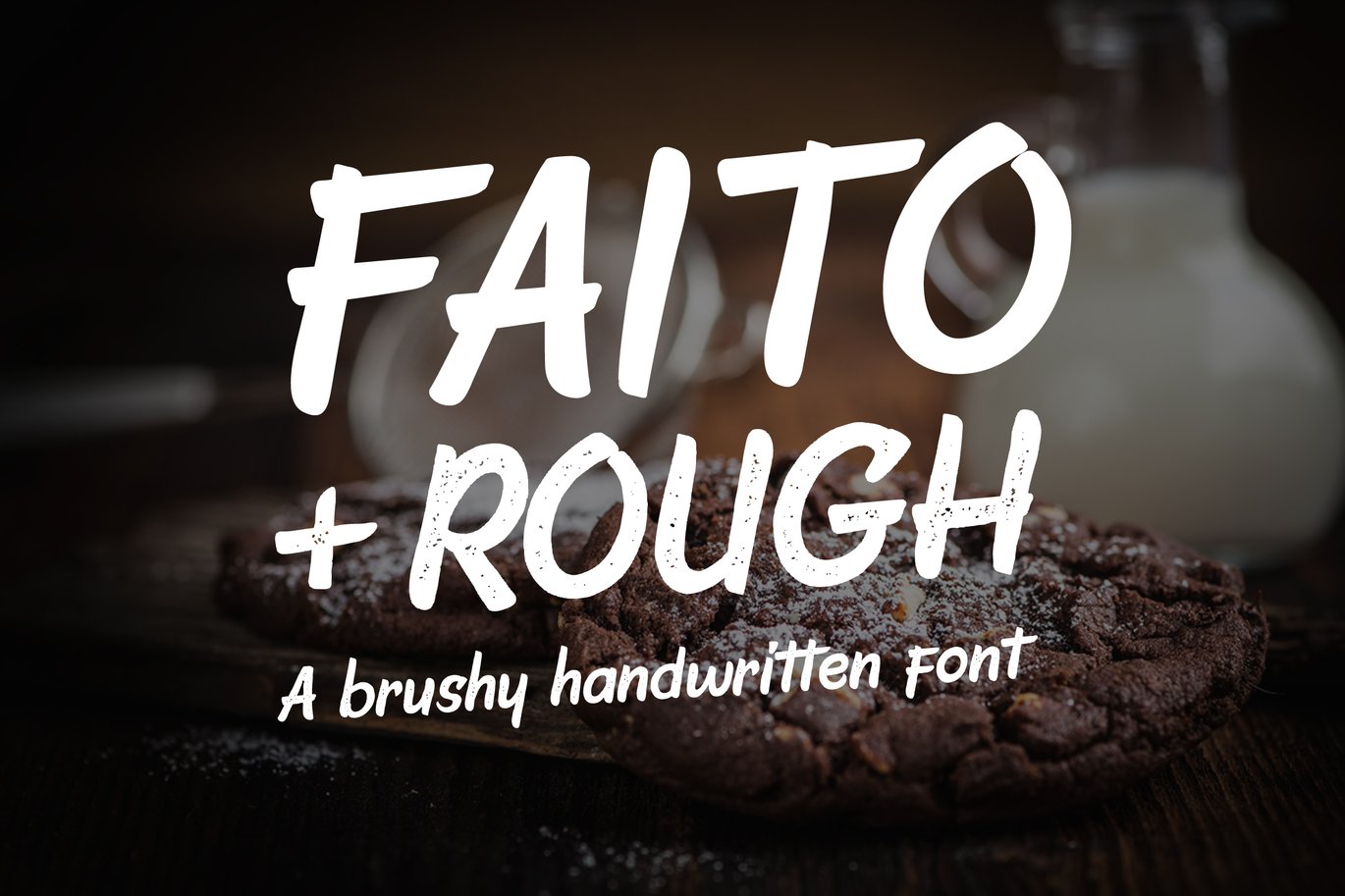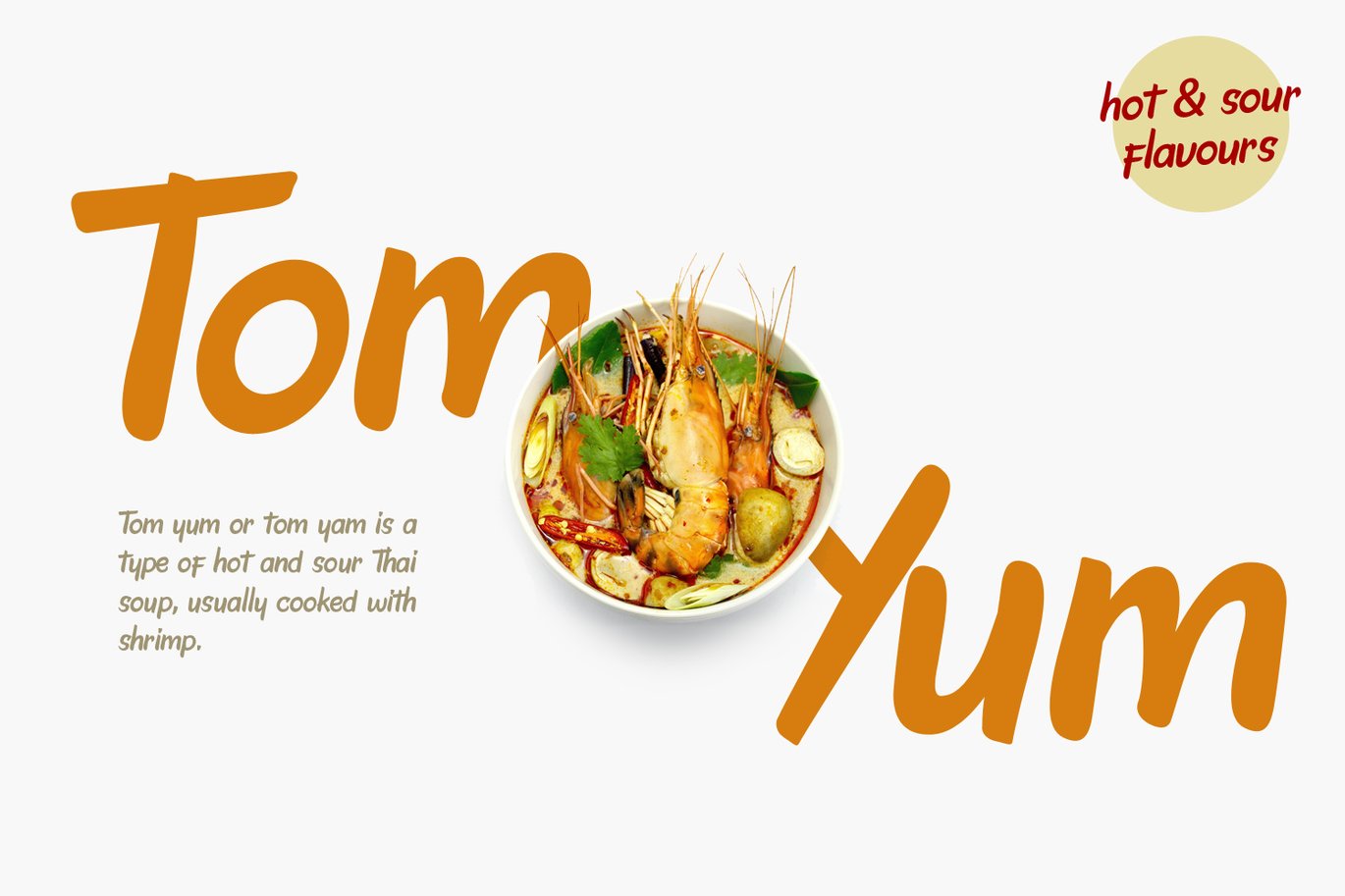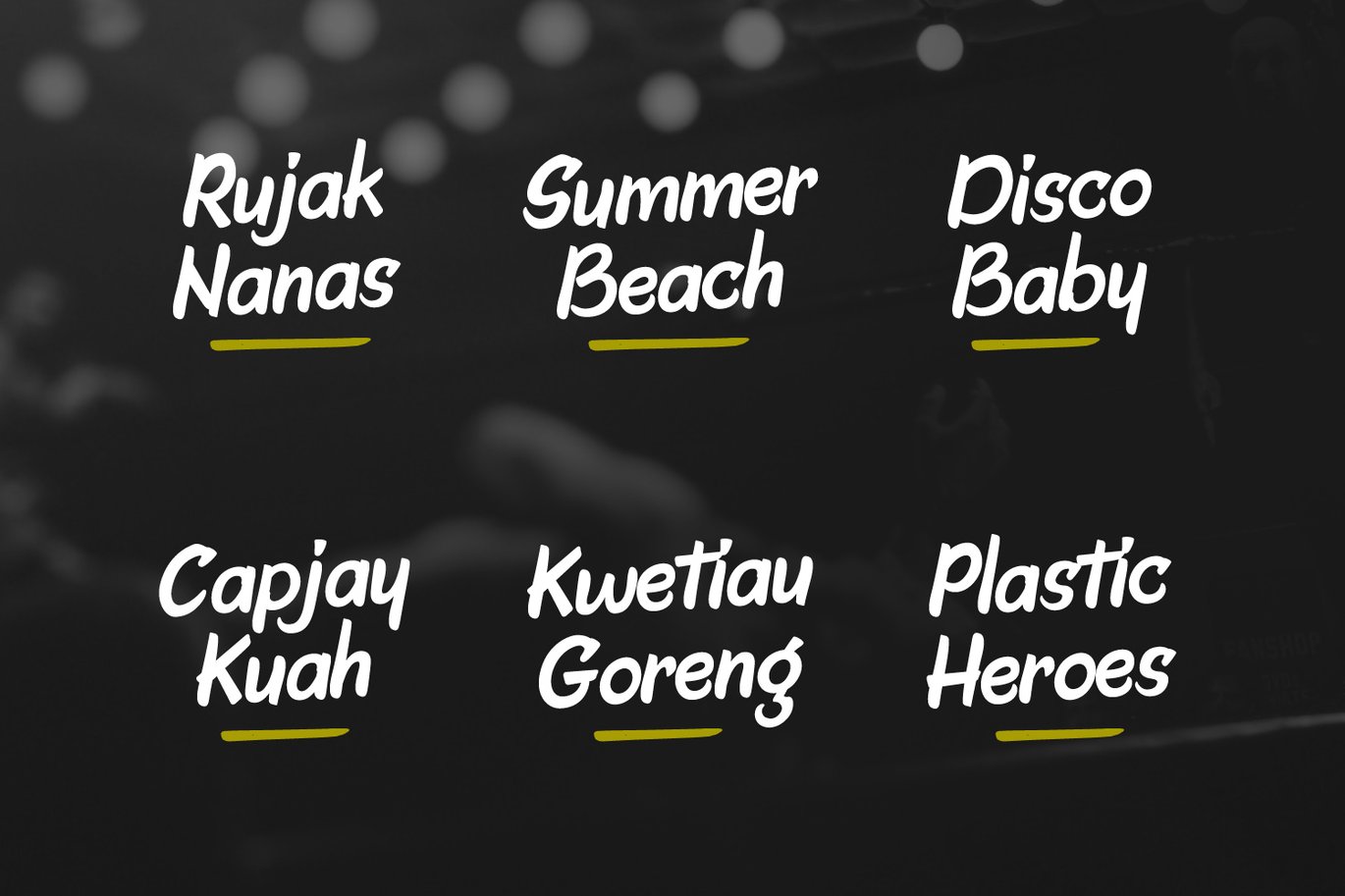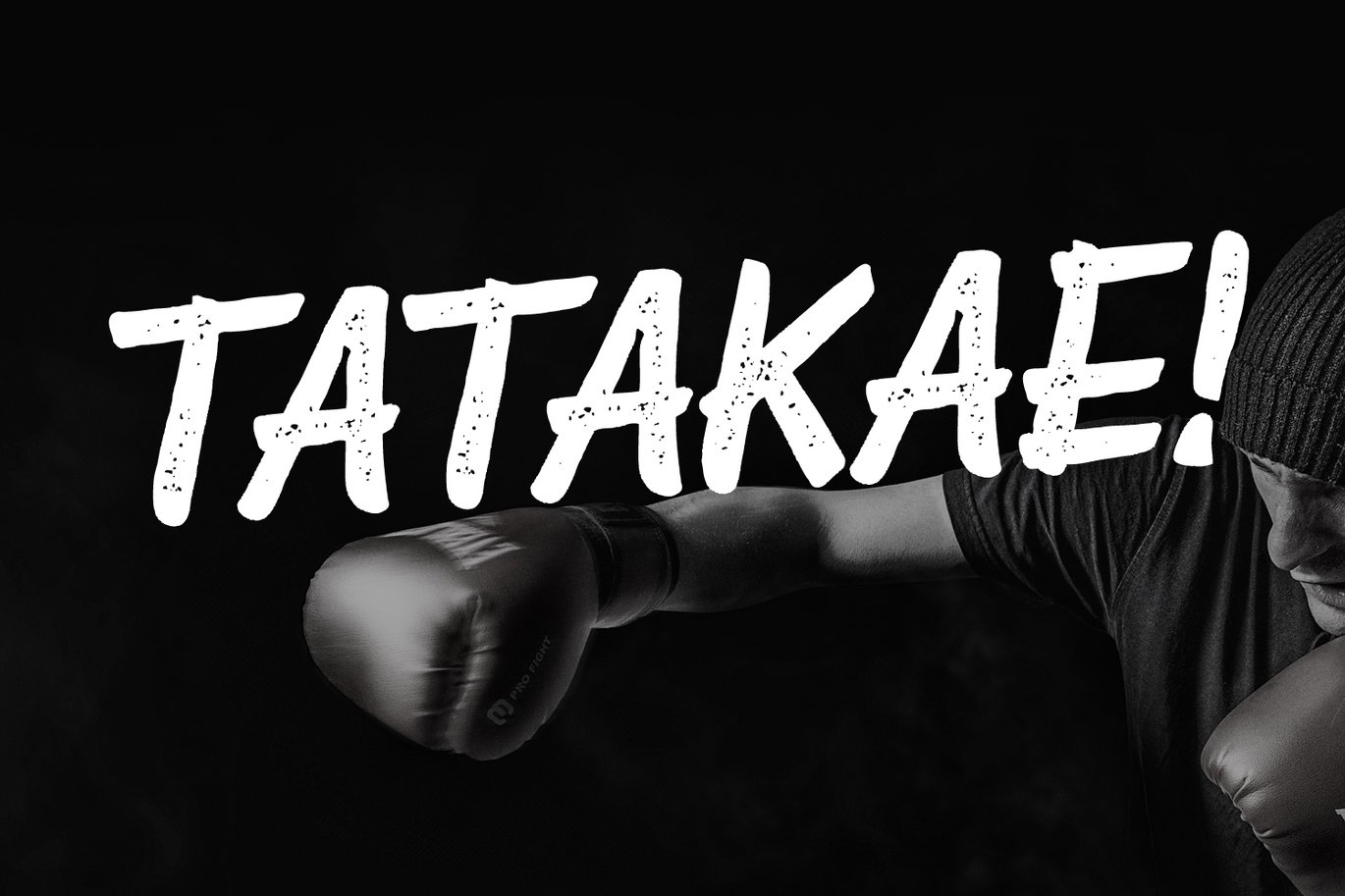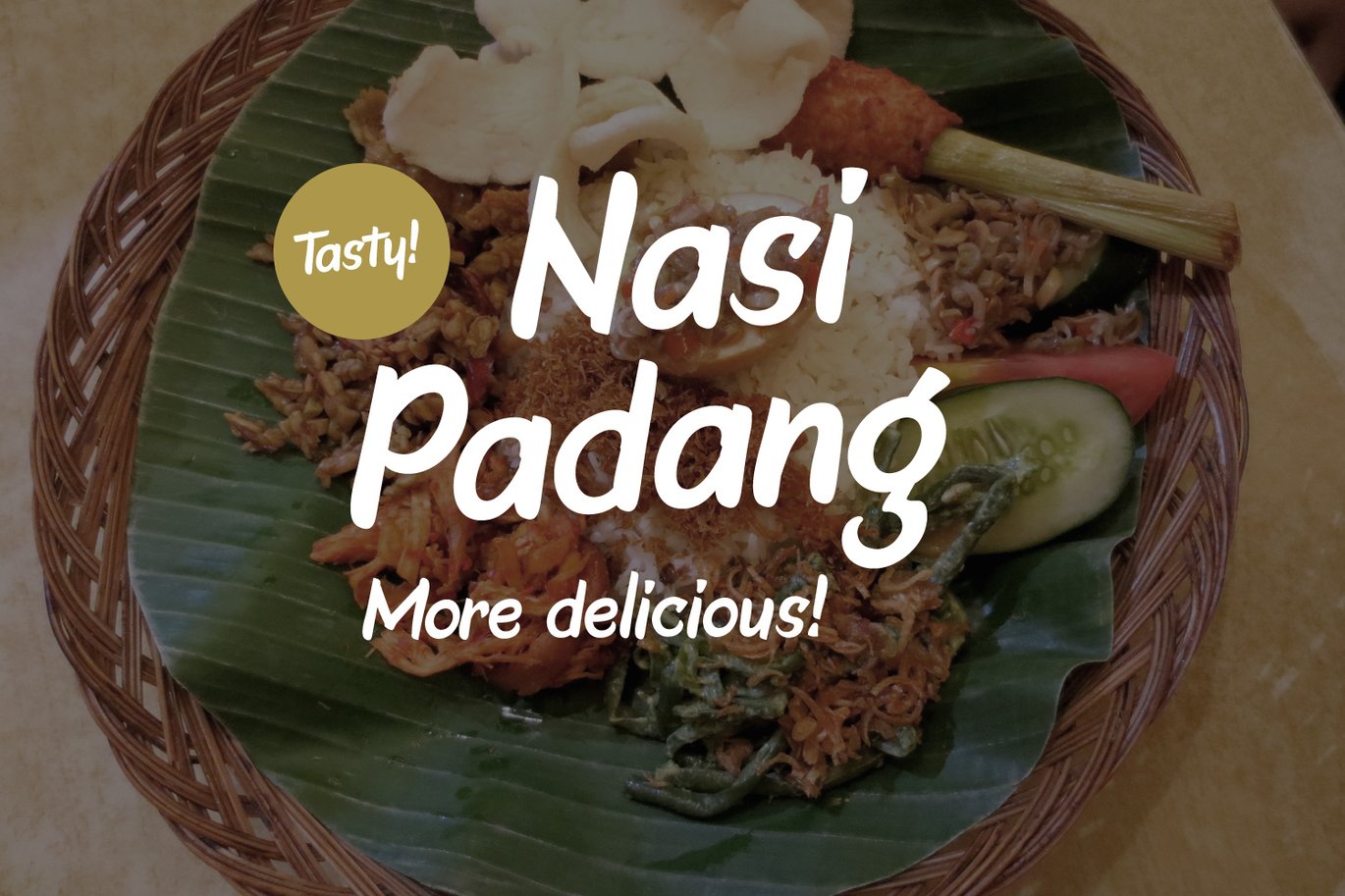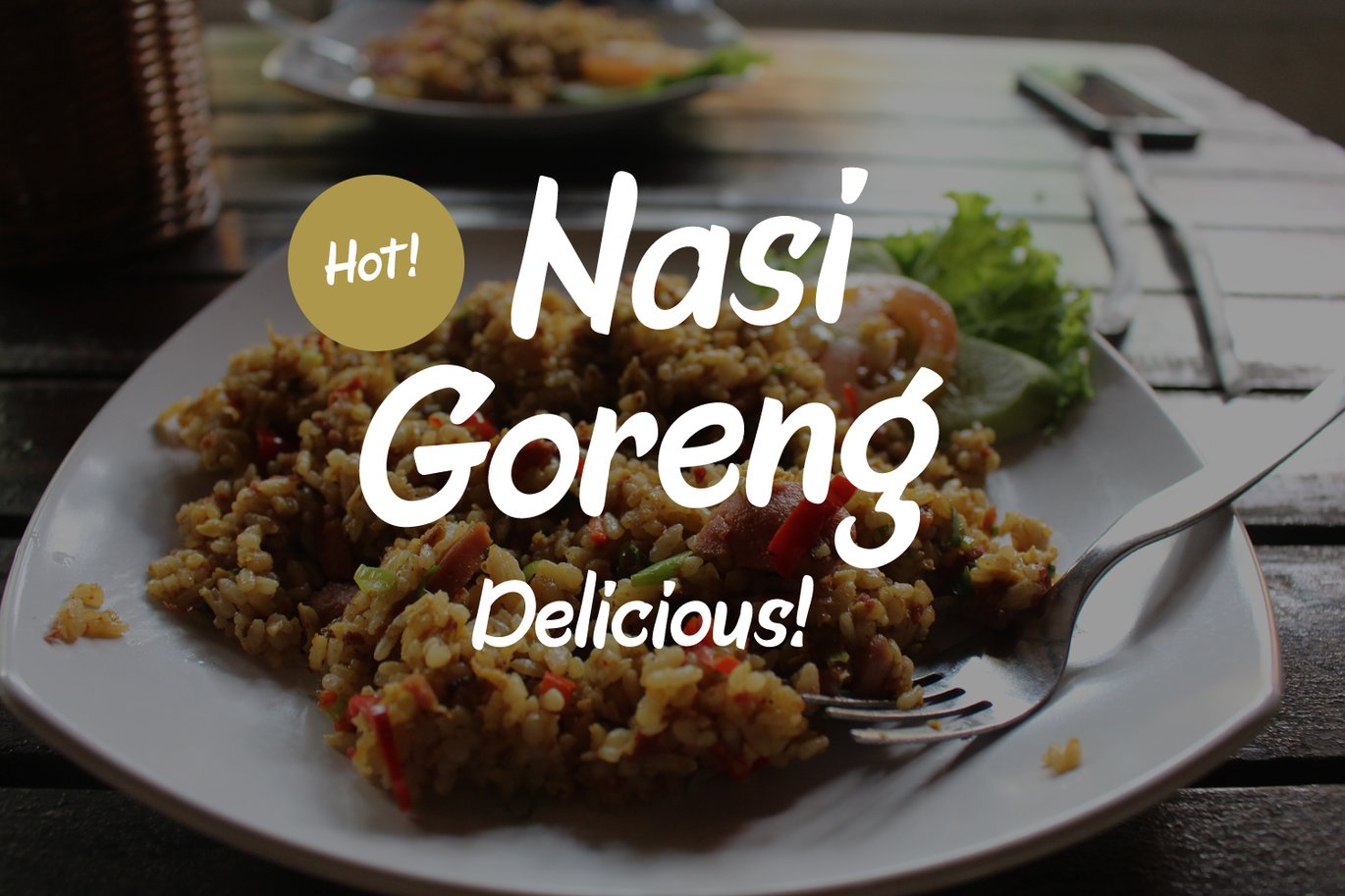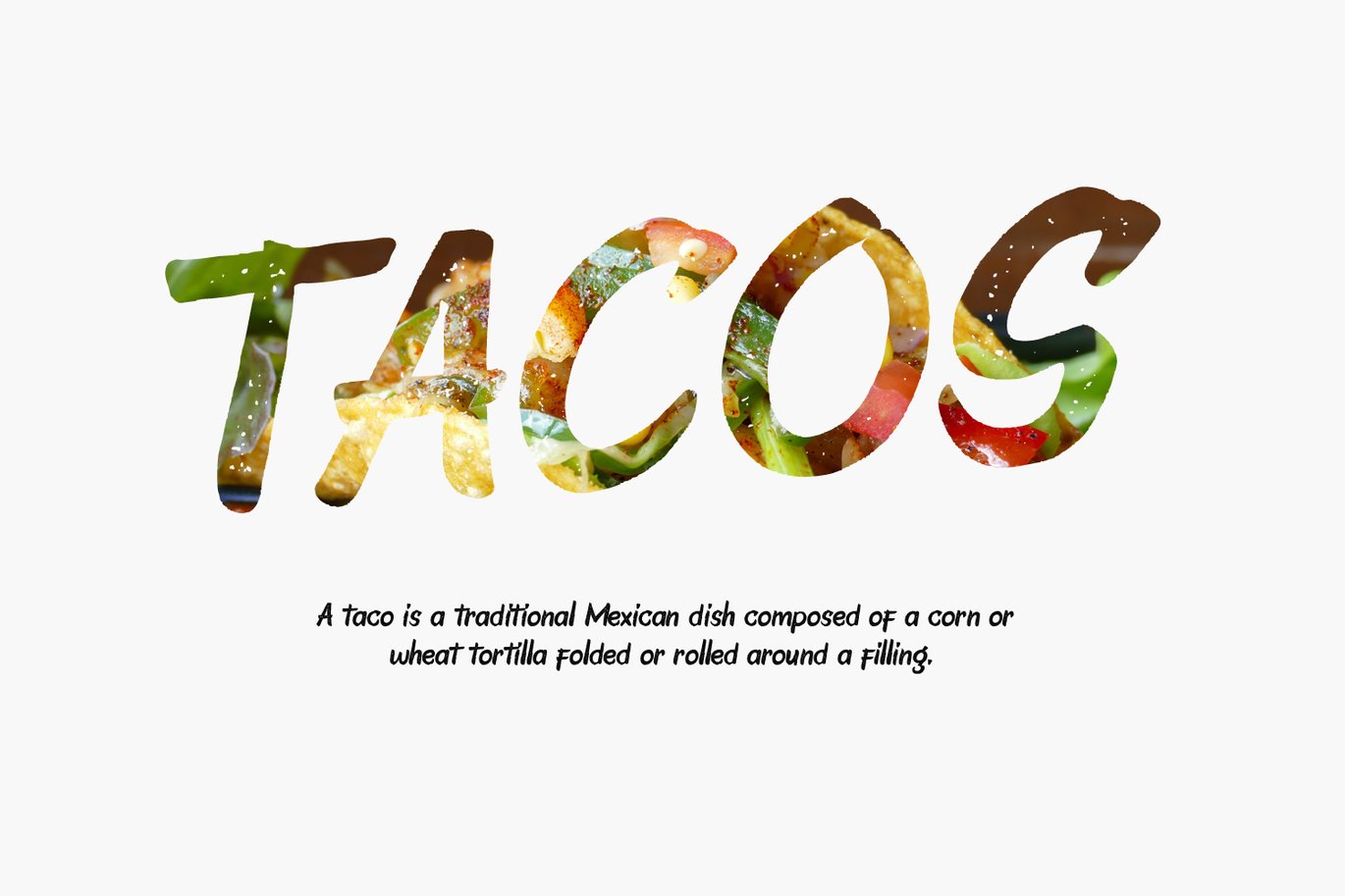
Faito | handwritten brush fonts
Faito is a handwritten brush font inspired by text balloons in Japanese comic book with a neat brushy look.
Suitable for food and beverages restaurant menu, branding, packaging, summer theme, or your next comic book.